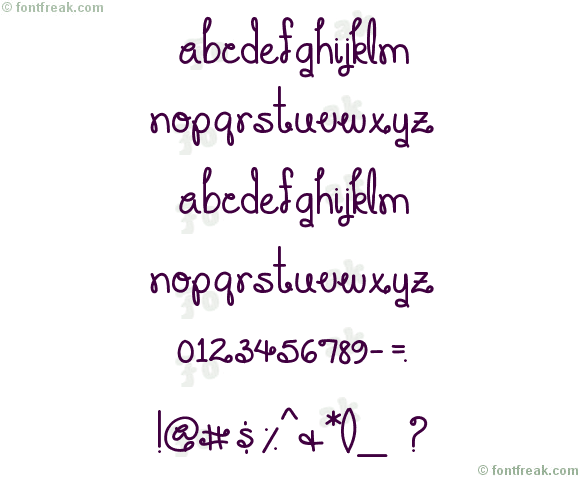
You Make Me Smile
The "You Make Me Smile" font by Vanessa Bays is a delightful handwritten typeface that radiates warmth and playfulness. This script font features a charming, informal style characterized by its smooth, flowing strokes and a light, whimsical touch. With a moderate stroke weight and gentle contrast, it provides legibility while maintaining a friendly vibe. The spacing between the letters feels balanced, allowing for easy reading, which enhances its appeal for various applications.
This font is perfect for a variety of creative projects. It shines in wedding invitations, where its romantic flair can elevate the overall design. Additionally, "You Make Me Smile" is ideal for children's book covers, lending a cheerful atmosphere that captures the imagination of young readers. Its playful nature also makes it a great choice for restaurant menus, especially for cafes or eateries aiming to convey a casual, welcoming environment. Graphic designers will find this font useful for promotional materials, such as flyers or social media graphics, where a touch of personality is desired. Small business owners can use it to create engaging branding elements that resonate with their target audience.
The target audience for this font includes graphic designers, small business owners, and content creators looking to infuse their work with a sense of joy and friendliness. The "You Make Me Smile" font free download offers a unique opportunity to enhance any design project with a personal touch.
What truly sets this font apart is its ability to evoke positive emotions and create a sense of connection. Whether used in print or digital formats, it brings a smile to viewers' faces, making it an invaluable addition to any designer's toolkit.